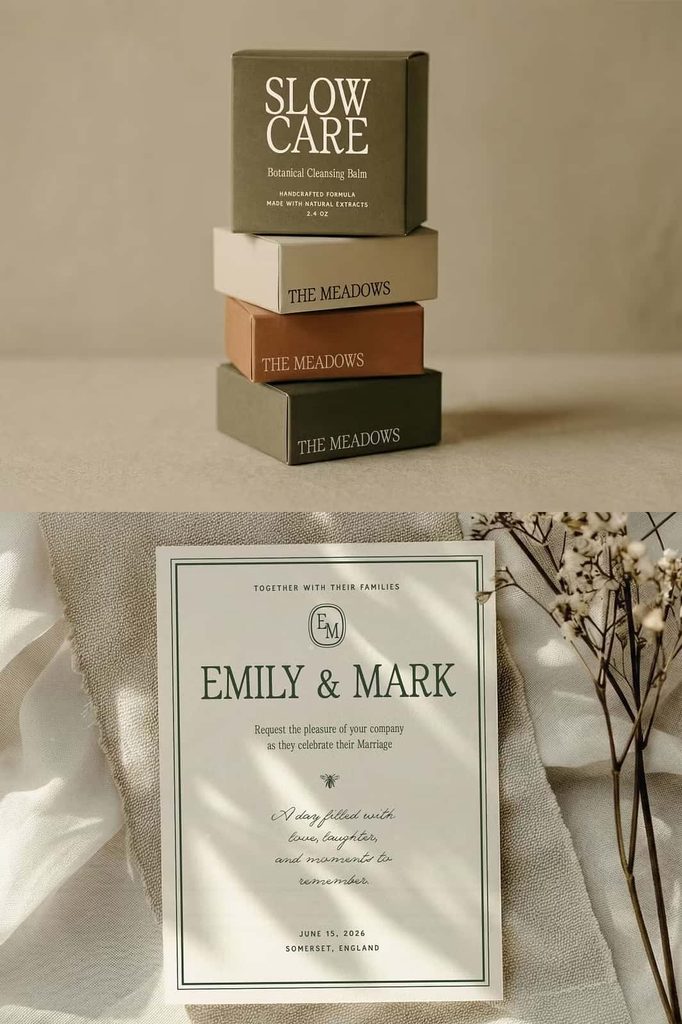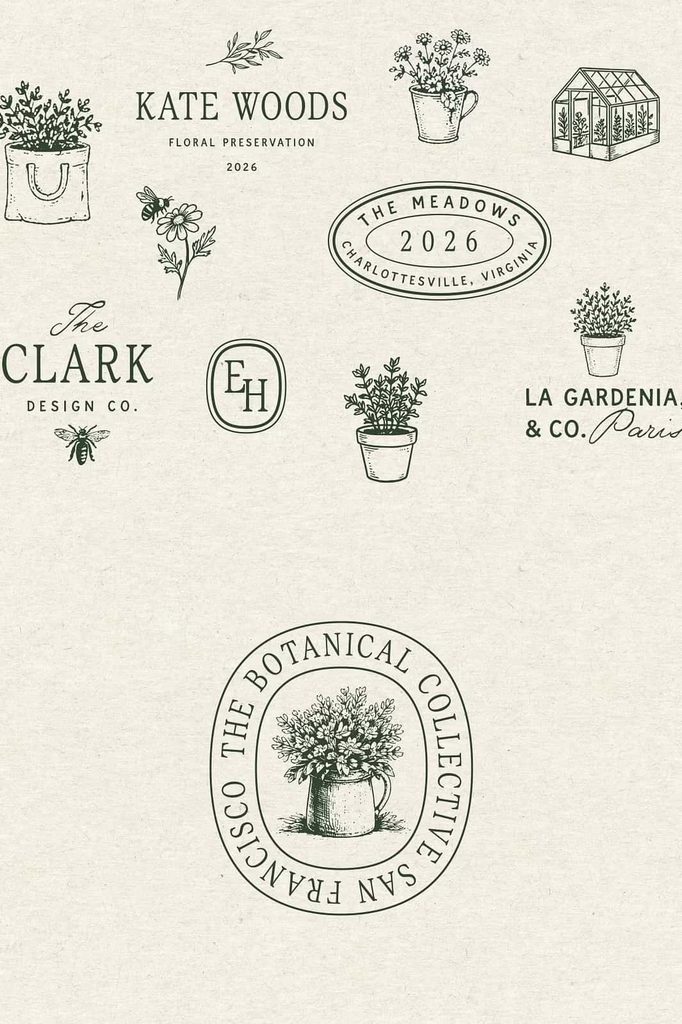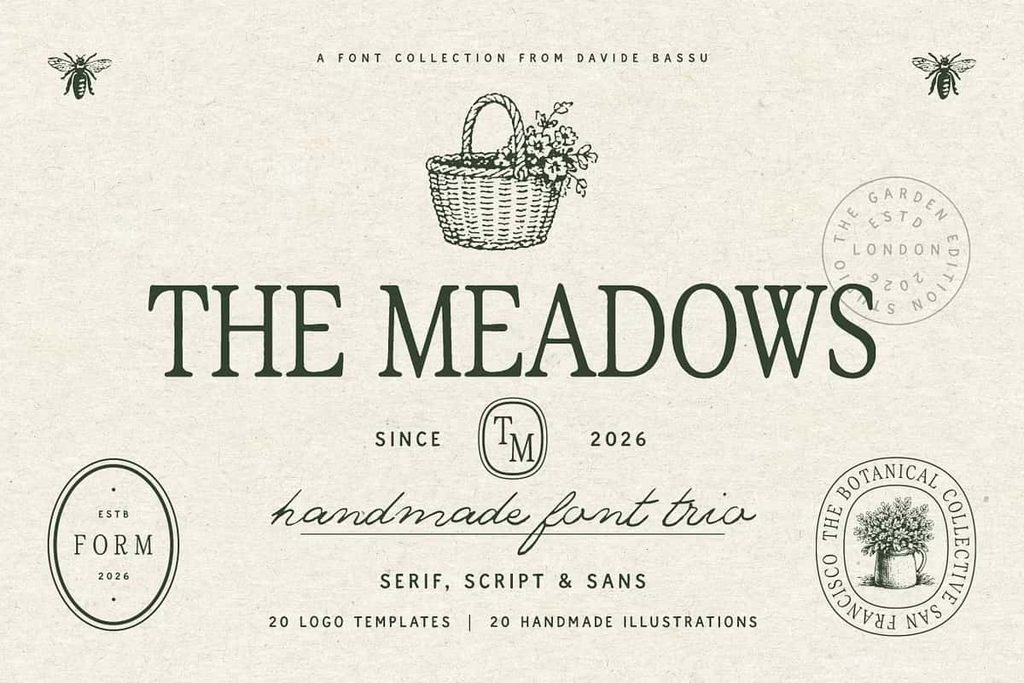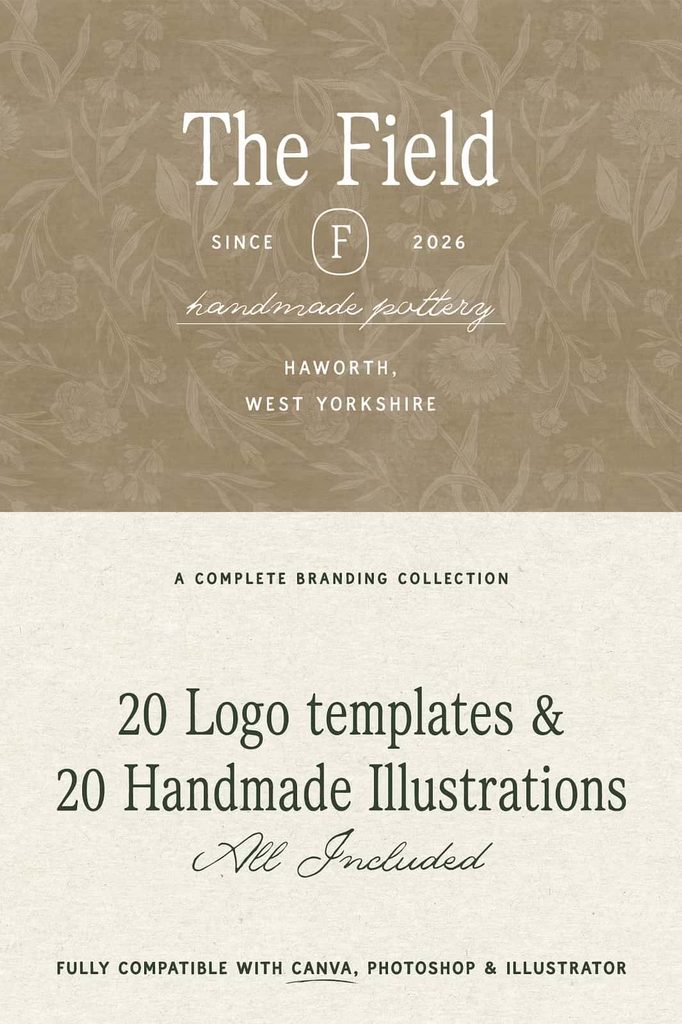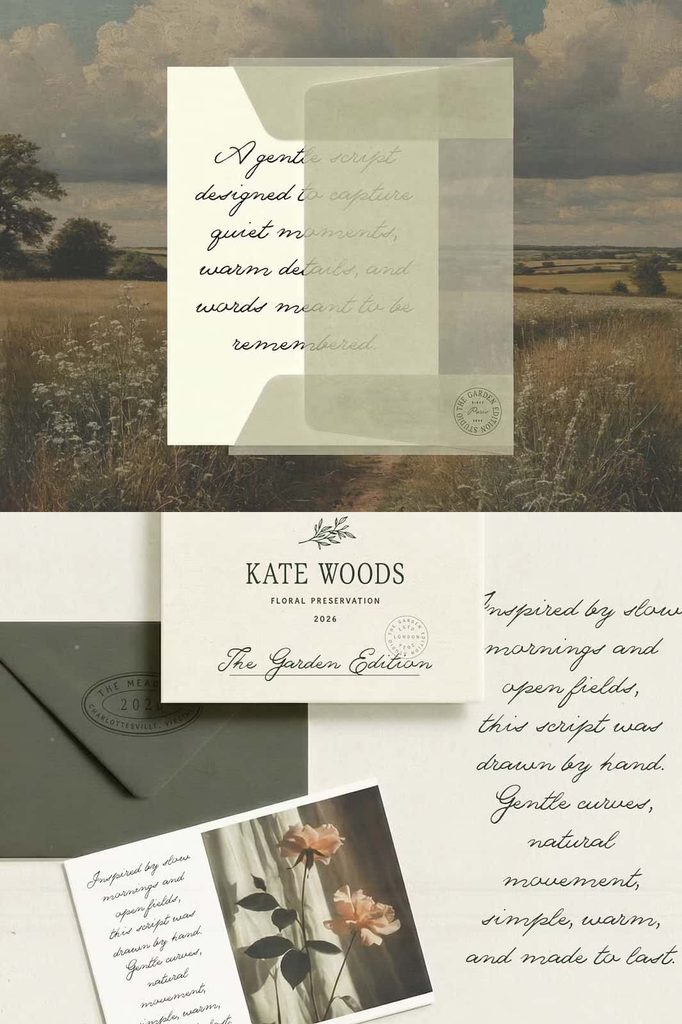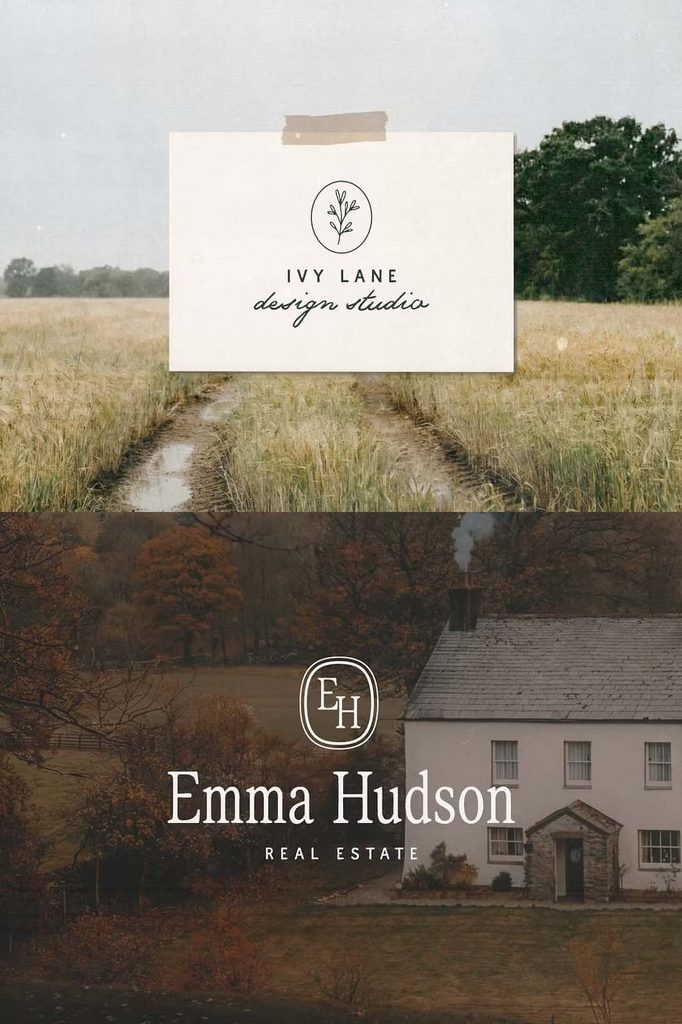
The Meadows Font Trio – Handcrafted Typography for Rustic Branding
The Meadows is a beautifully handcrafted font trio inspired by the warmth of countryside living, the charm of farmers markets, and the timeless appeal of vintage editorial design. Created for designers who want to build authentic and memorable visual identities, The Meadows combines expressive typography with practical branding resources. The collection includes three complementary fonts, 20 ready-made logo templates, and 20 handmade illustrations, giving you a versatile toolkit for developing cohesive branding with less effort.
With its organic personality and handcrafted appearance, The Meadows brings warmth and character to modern design projects. The font trio can help you create logos, packaging, labels, promotional materials, social media graphics, editorial layouts, and other branded assets that feel approachable and thoughtfully designed. Instead of building every element from scratch, you can use the included templates and illustrations to establish a complete visual direction quickly.
A Handcrafted Font Trio Inspired by Countryside Life
The Meadows captures the relaxed atmosphere of rural life through its handcrafted typographic style. Its design draws inspiration from countryside landscapes, local farmers markets, traditional shops, handmade goods, and vintage printed materials. These influences give the collection an authentic personality that works particularly well for brands that value craftsmanship, simplicity, nature, and community.
The organic appearance helps your typography feel less mechanical and more personal. Use the fonts to create brand names, headlines, product titles, packaging details, promotional messages, and decorative text. Their handcrafted qualities can immediately introduce a sense of warmth and authenticity to your designs.
The Meadows also adapts well to both rustic and contemporary projects. Combine the fonts with natural textures, earthy photography, botanical illustrations, or simple layouts for a countryside-inspired identity. Alternatively, place the typography within a clean modern composition to create a more sophisticated interpretation of the handcrafted aesthetic.
Designed for Complete Brand Identities
The Meadows goes beyond providing a collection of fonts. The package includes 20 logo templates and 20 handmade illustrations, allowing you to develop a more complete visual identity from a single design resource. These additional elements help you establish consistency across different brand materials while reducing the time required to create supporting graphics.
Use the logo templates as a starting point for your branding projects. Customize the typography, arrangement, and supporting elements to create a logo that reflects your brand’s personality. You can also use the handmade illustrations throughout packaging, stationery, social media graphics, websites, and promotional materials to reinforce the overall visual language.
Create Consistent Branding with Ease
A successful brand identity relies on consistency. The Meadows helps you maintain a unified appearance by combining complementary typography, logo concepts, and illustrations. Instead of searching for unrelated graphic resources, you can build multiple brand assets around one cohesive visual style.
This approach works especially well for small businesses, creative entrepreneurs, product makers, boutique shops, food brands, lifestyle businesses, and other projects that need a distinctive identity without creating every visual component from the ground up.
20 Logo Templates for Faster Design
The included 20 logo templates give you a practical foundation for creating professional-looking brand marks. Rather than starting with a blank canvas, you can select a suitable template and adapt it to your project. Change the wording, adjust the composition, combine the elements with the included fonts, and develop a logo that feels unique to your business.
The templates can also inspire new branding concepts. Even when you do not use a design exactly as provided, the layouts can help you explore different arrangements, typography combinations, and visual directions. This makes the collection useful for both experienced designers and creatives who want to streamline their workflow.
20 Handmade Illustrations Add Visual Character
The Meadows also includes 20 handmade illustrations that complement its countryside-inspired aesthetic. These illustrations can add visual depth and personality to your branding materials. Use them as decorative elements, supporting graphics, packaging details, social media artwork, website accents, or components within your logo compositions.
Handmade illustrations work particularly well when you want to communicate authenticity and craftsmanship. Combine them with the font trio to create a cohesive visual system that feels warm, organic, and approachable.
Perfect for Farmers Market and Food Branding
Whether you are branding a small farm shop, launching a handmade product, creating a rustic café identity, designing vintage-inspired editorial artwork, or developing a modern lifestyle brand, The Meadows can help you create typography and visuals that feel genuine, distinctive, and thoughtfully crafted.